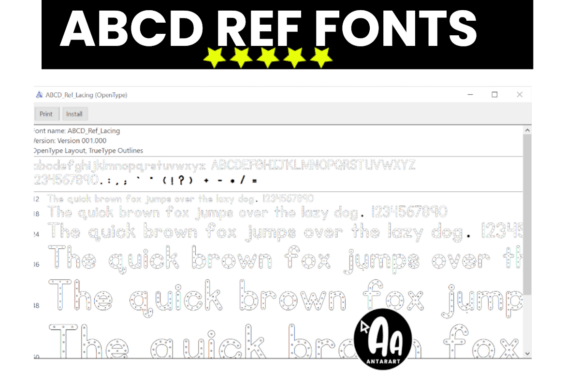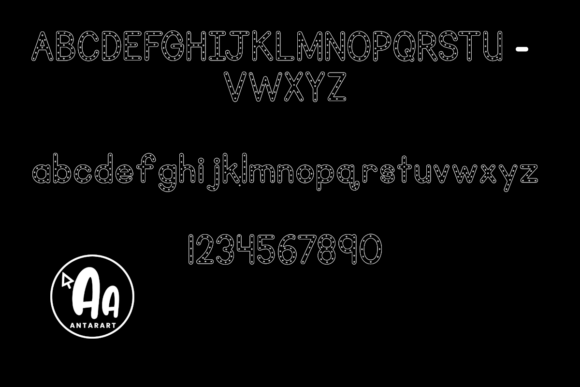
Introduction to Lacing Alphabet Font
Remember when you were a child, and the simplest tasks brought the greatest joy? For me, it was threading beads onto a piece of string, watching my creation come to life with each careful pass. That same sense of accomplishment and creativity can be sparked in young children with the Lacing Alphabet Font, a free design resource that’s perfect for preschool and kindergarten classrooms, homeschools, or occupational therapy sessions.
As a designer, you know the importance of engaging and interactive projects that encourage children to develop their fine motor skills, hand-eye coordination, and letter recognition. The Lacing Alphabet Font is a high-quality, printable set that includes uppercase and lowercase letters with lacing guides, making it an ideal addition to any creative project. With a transparent background, you can easily print and laminate the set, providing a durable and long-lasting resource for your students.
By incorporating the Lacing Alphabet Font into your classroom centers or homeschool routine, you’ll not only be teaching your students the alphabet, but also helping them develop essential skills that will benefit them throughout their academic journey. So why not download this free resource today and watch your students’ creativity and confidence soar?
Lacing Alphabet Font
- Unique Design: The Lacing Alphabet Font features a distinctive lacing design that adds a creative touch to any project.
- High-Quality Graphics: This font is designed with high-quality graphics, ensuring crisp and clear visuals for your design resource.
- Transparent Background: This font comes with a transparent background, allowing you to easily integrate it into your design without any distractions.
- Size and Resolution: The font size is scalable, and the resolution is high (300 DPI), ensuring that your design looks great in any size or resolution.
- Perfect for Various Projects: The Lacing Alphabet Font is ideal for a wide range of creative projects, including invitations, posters, and digital designs.
Honest Review: Lacing Alphabet Font
As a designer, I’m always on the lookout for high-quality design resources to elevate my creative projects. Recently, I came across the Lacing Alphabet Font, and I must say it’s a great addition to my design arsenal.
What works well: ✨ The font is super versatile and can be used for a wide range of creative projects, from children’s educational materials to fashion branding. The transparent background is a huge plus, making it easy to use in complex design compositions. The font’s playful, handwritten feel is also a great asset for designers looking to add some personality to their work.
- High-quality design resource
- Playful, handwritten feel
However, I do have a few minor complaints: ⚠️ The font may not be suitable for formal or corporate designs, as its playful nature may not be taken seriously. Additionally, the font’s complexity may make it difficult to use in certain design software.
Overall, I’m impressed with the Lacing Alphabet Font. It’s a great design resource that can add a lot of character to a project. While it may have some limitations, its versatility and high quality make it a worthwhile download for designers looking to spice up their work.
Lacing Alphabet Font
The Lacing Alphabet Font is a versatile design resource ideal for creative projects that require a unique and playful touch. This free download offers a high-quality font with a transparent background, making it easy to integrate into various design platforms.
Using Lacing Alphabet Font in Design Platforms
This font can be used in various design applications, including:
– Add a personal touch to your social media graphics, presentations, and other visual content.
– Incorporate the font into your designs, logos, and graphics for a creative twist.
– Enhance your presentations and documents with the Lacing Alphabet Font’s unique style.
Getting the Most Out of Lacing Alphabet Font
To get the most out of this font, consider the following tips:
- Experiment with different font sizes and colors to create visual interest.
- Combine the font with other design elements, such as illustrations and graphics, for a cohesive look.
- Use the font in creative ways, such as in titles, headings, and even as a design element in itself.
The Lacing Alphabet Font is perfect for:
- Children’s educational materials and activities.
- Party invitations and decorations.
- Graphic design projects that require a playful and whimsical touch.